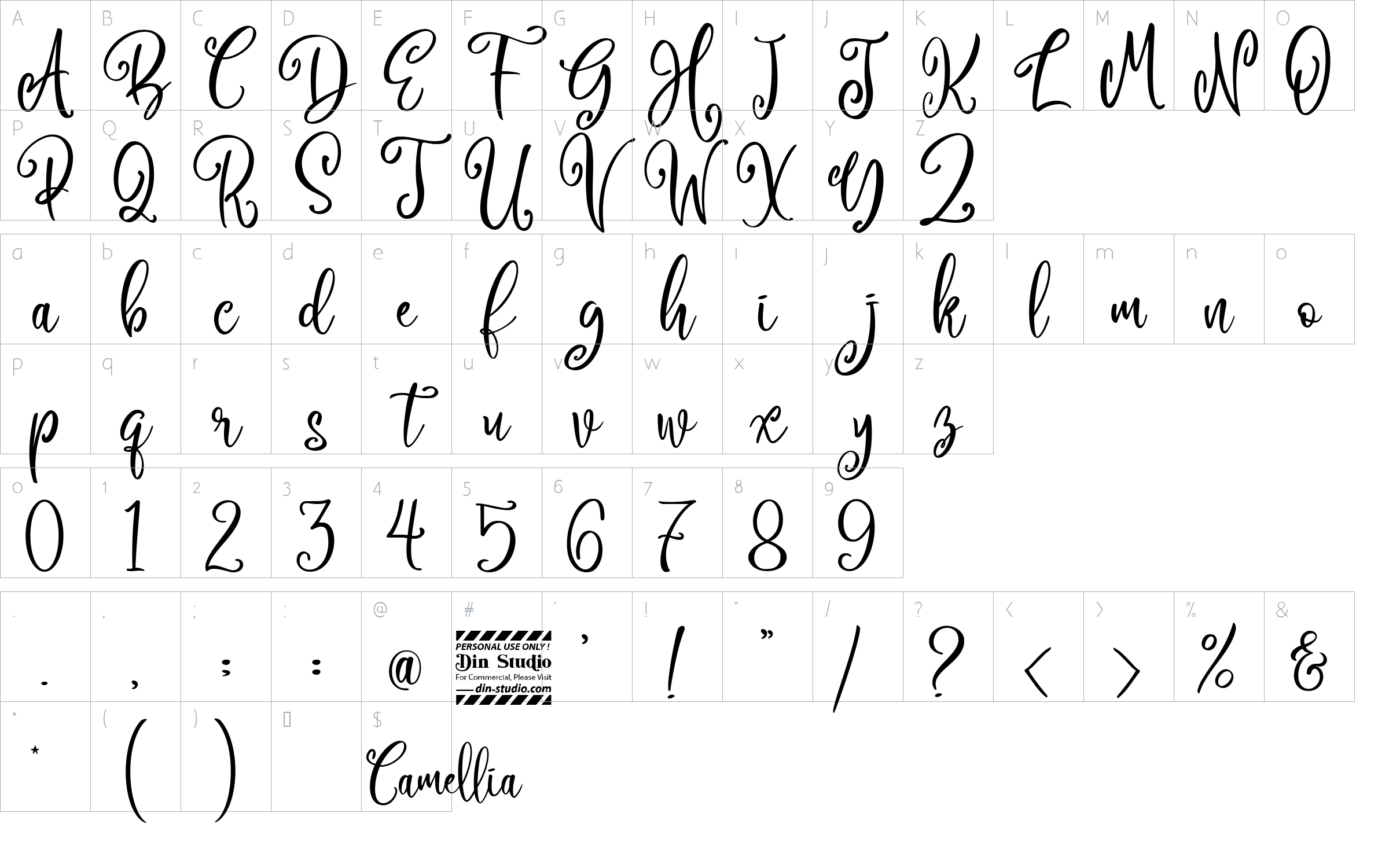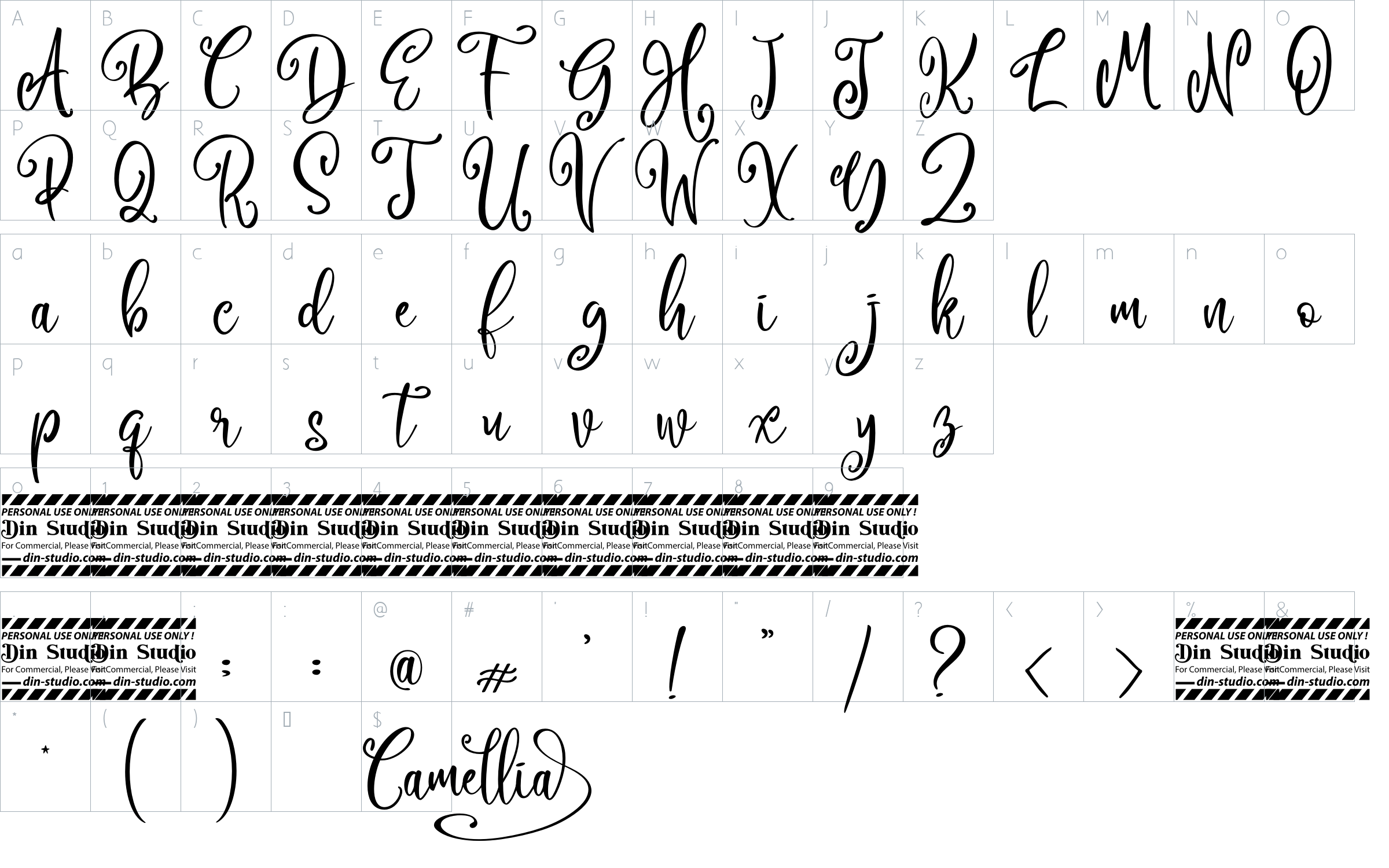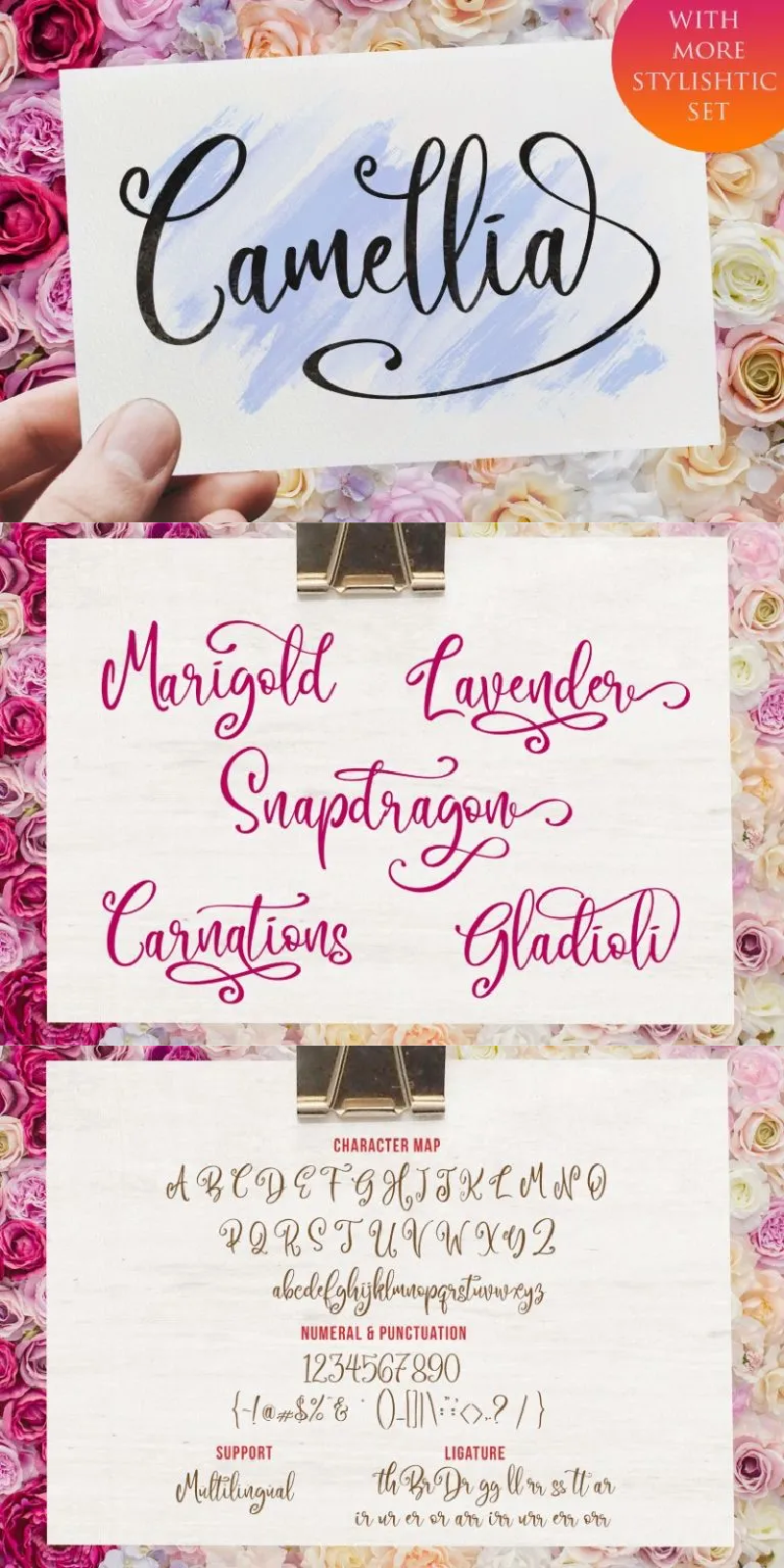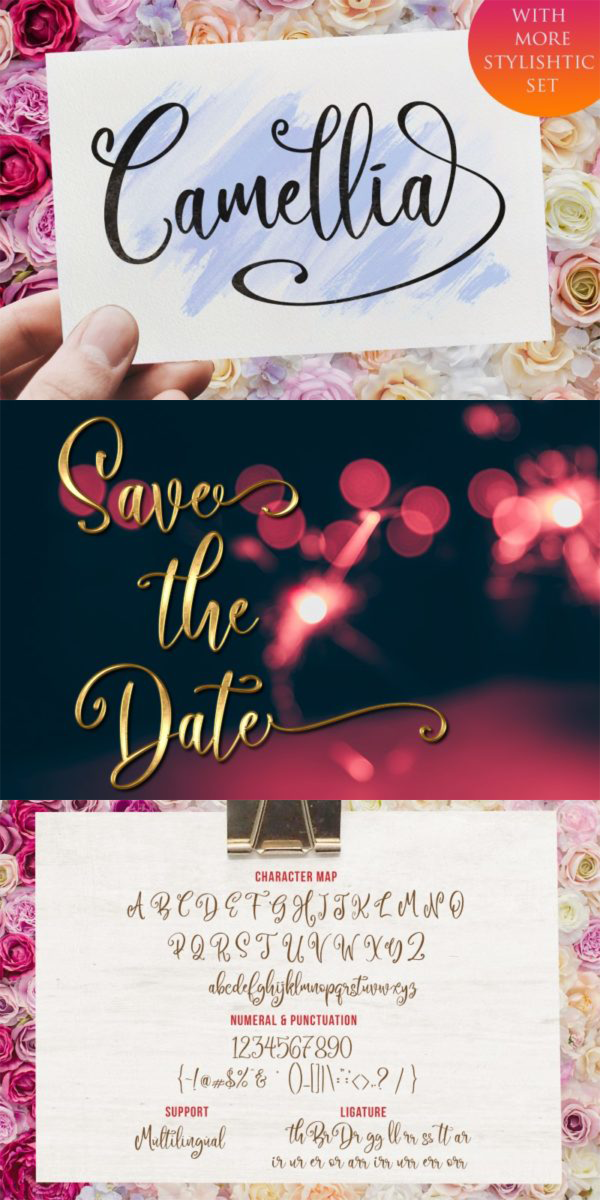
Camellia Font
About Camellia
Hello… I want to introduce Camellia Script! This font suitable for your design project, especially for branding, wedding, social media campaign, advertising, and lettering. With the combination of elegant and casual style, this font contains a full set of lowercase and uppercase letters, numerals, punctuation, and ligatures. See the previews above to get some inspiration on how you can use them. Enjoy the font!
Features :
- 18 Ligatures
- 114 Alternates & Stylistic set
- Character Set A-z
- Numerals and Punctuation (OpenType Standard)
- Accents (Multilingual characters)